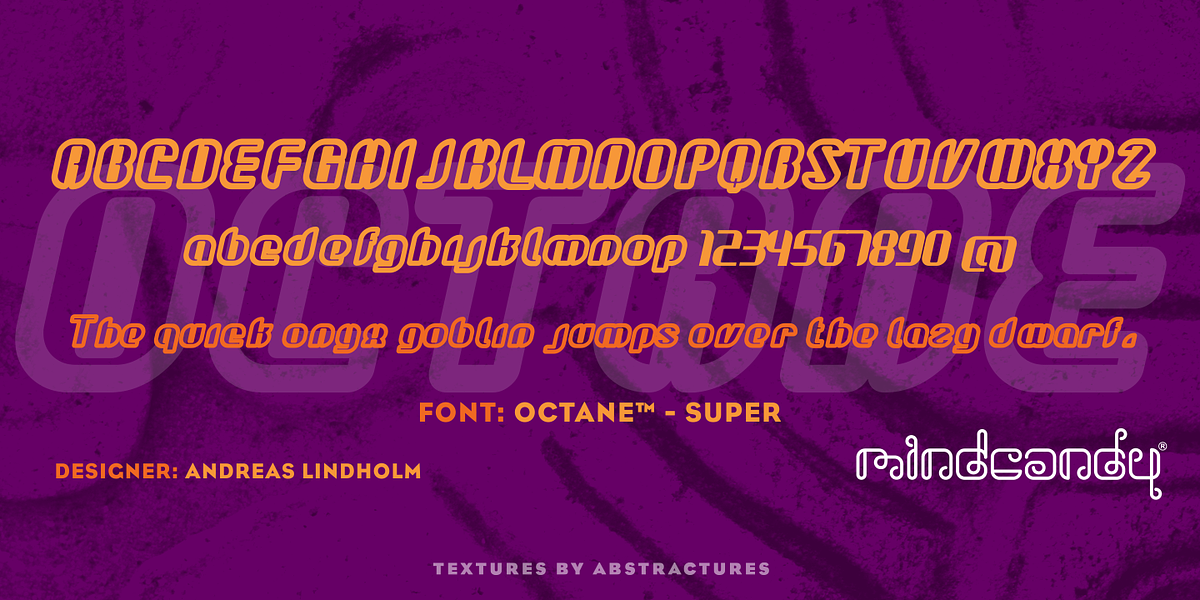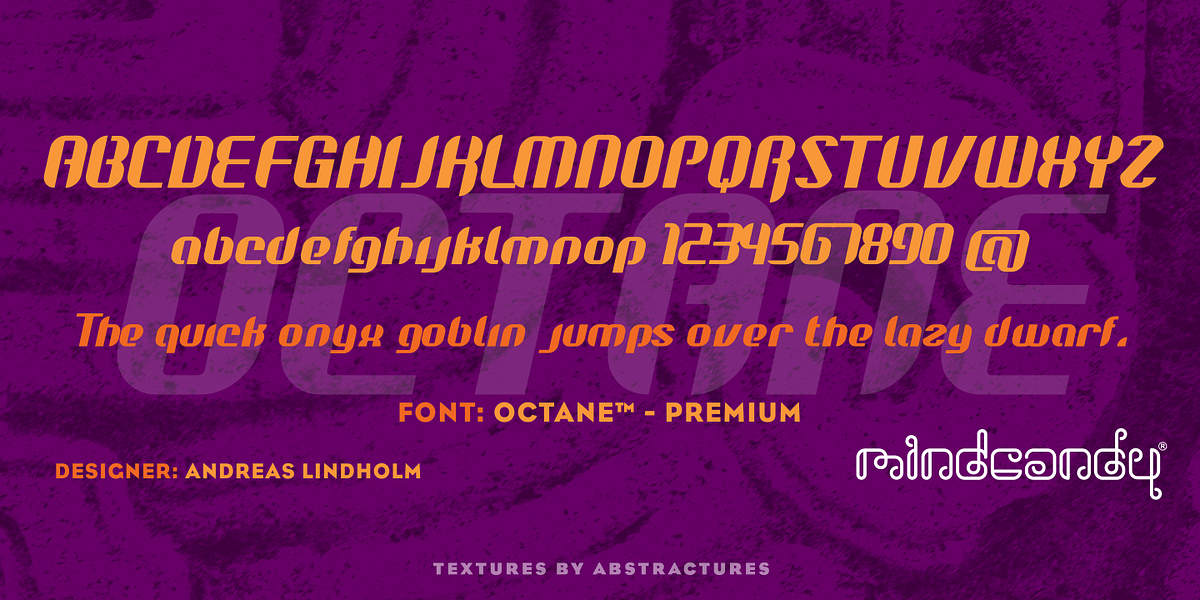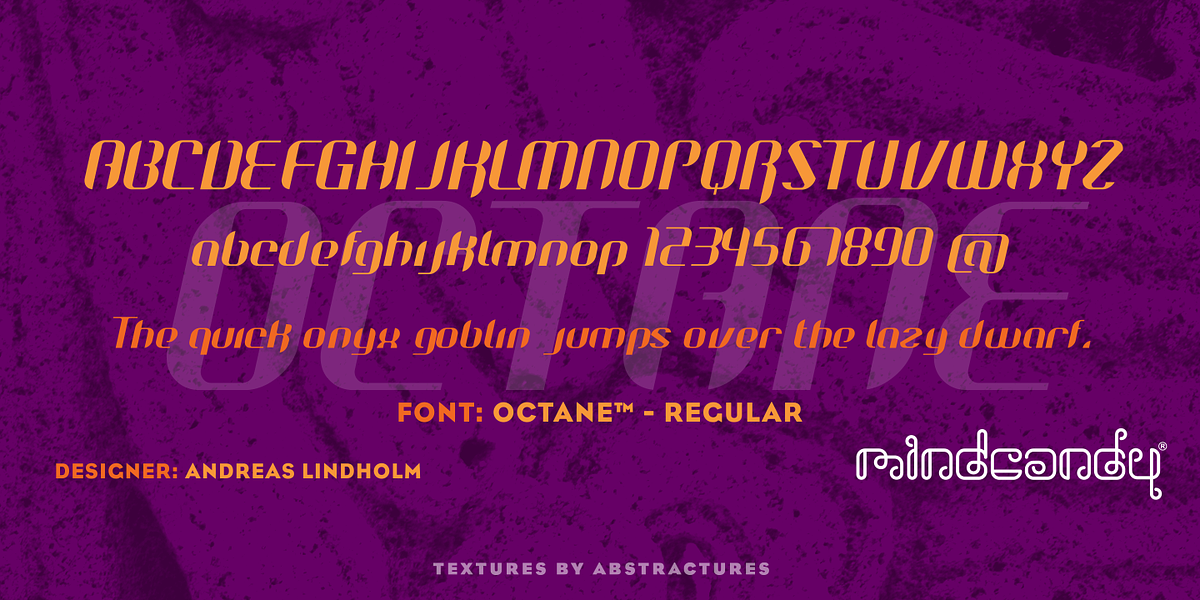
Octane™
This font is a bold and futuristic outline font. Designed by Andreas Lindholm, it's well-suited for headlines, branding, and posters. Its sci-fi theme makes it ideal for projects looking for a unique and eye-catching display typeface.